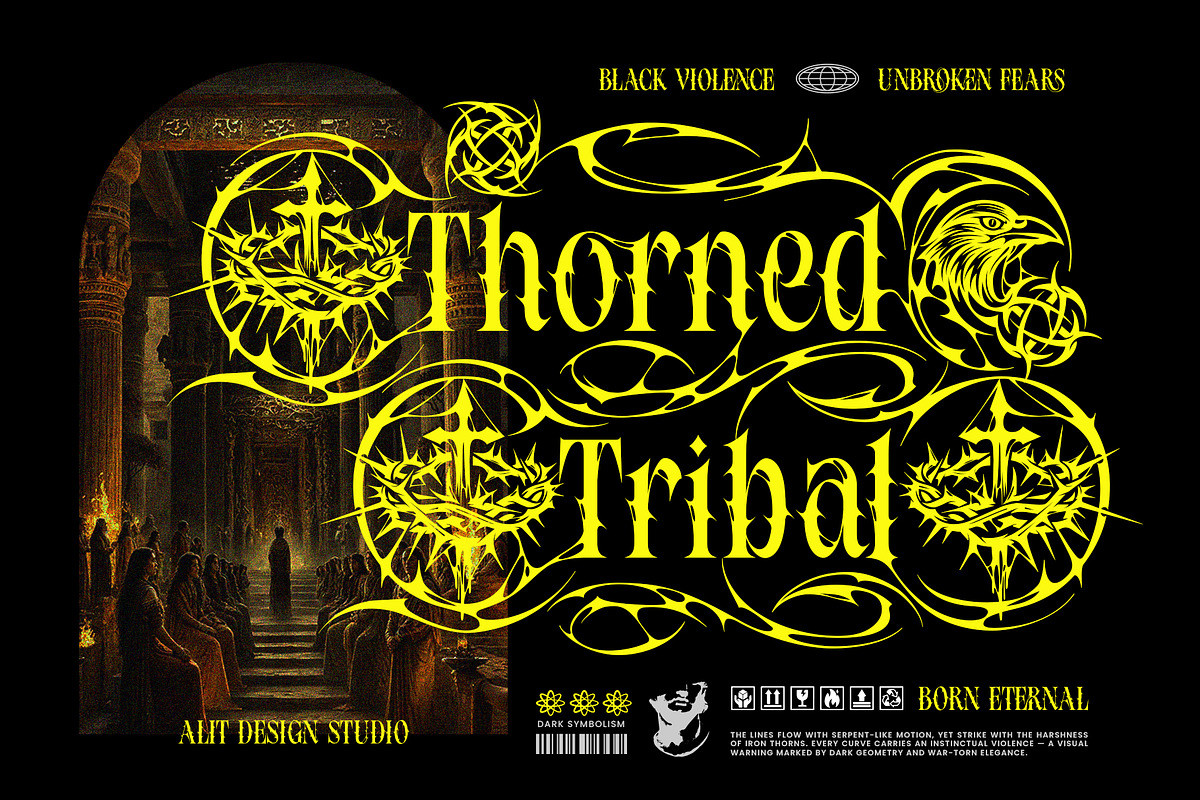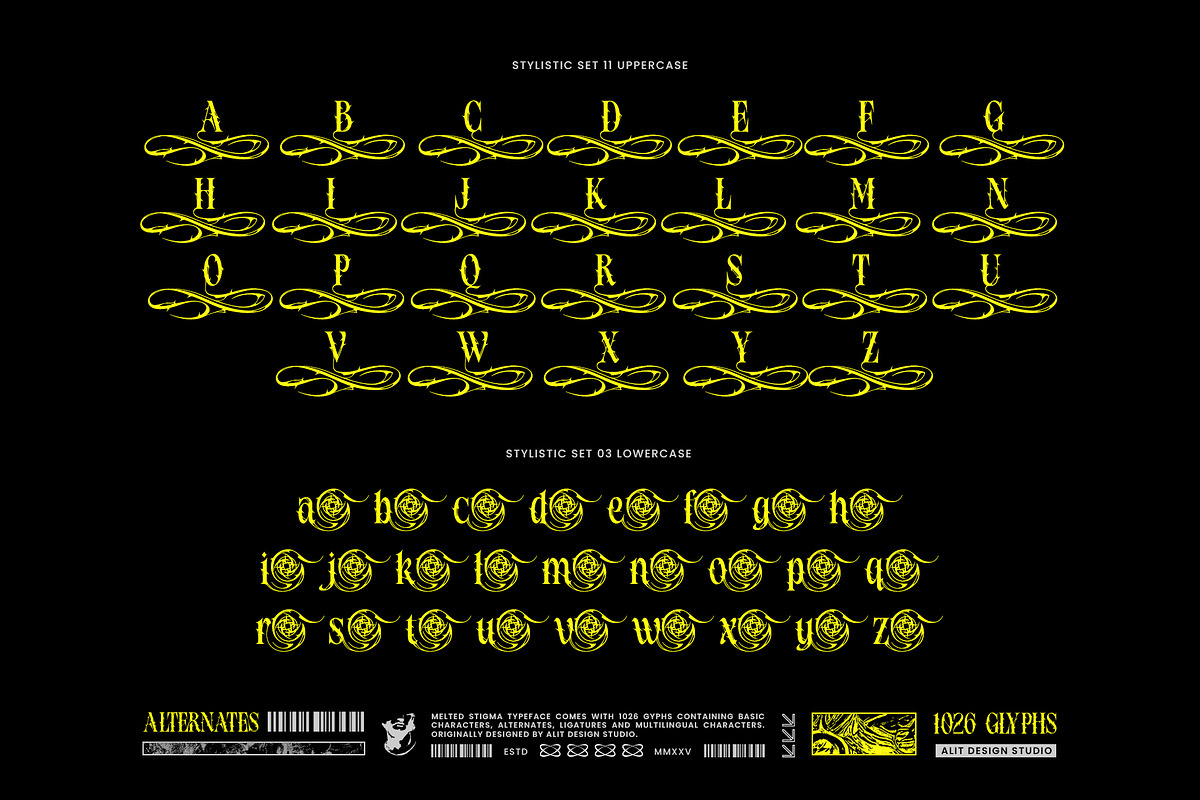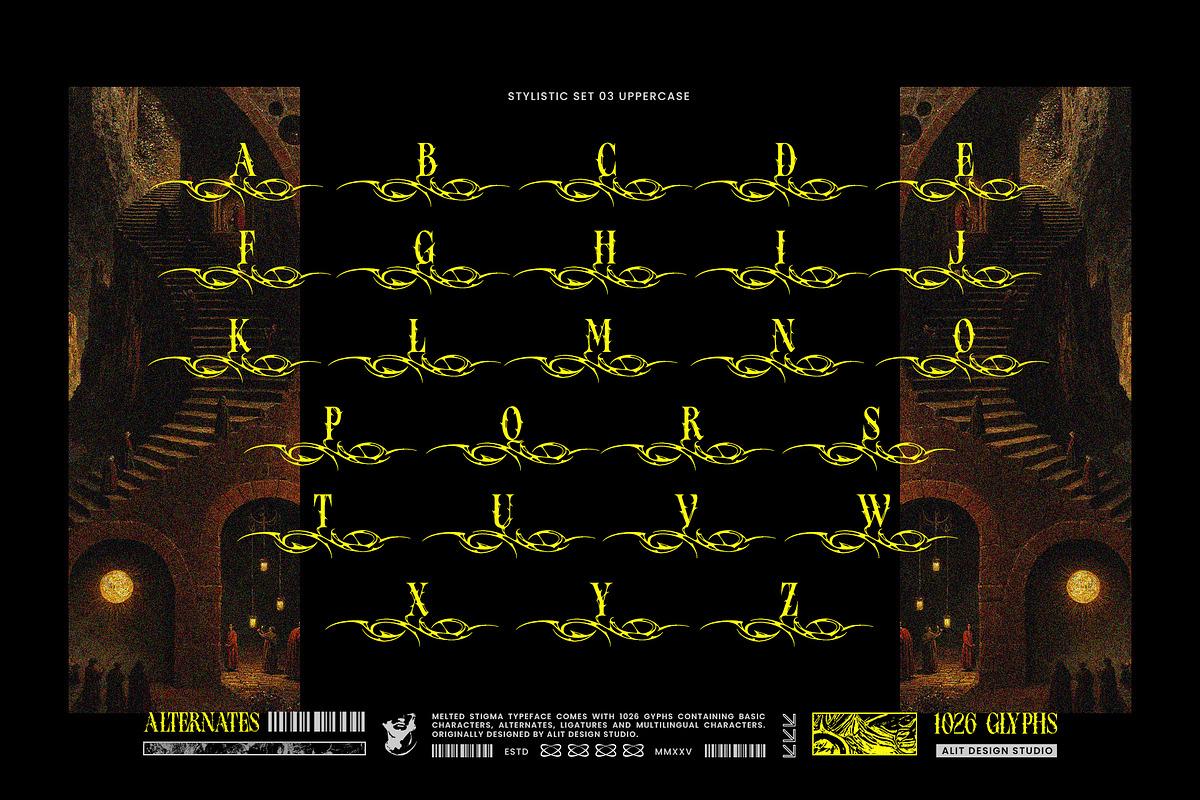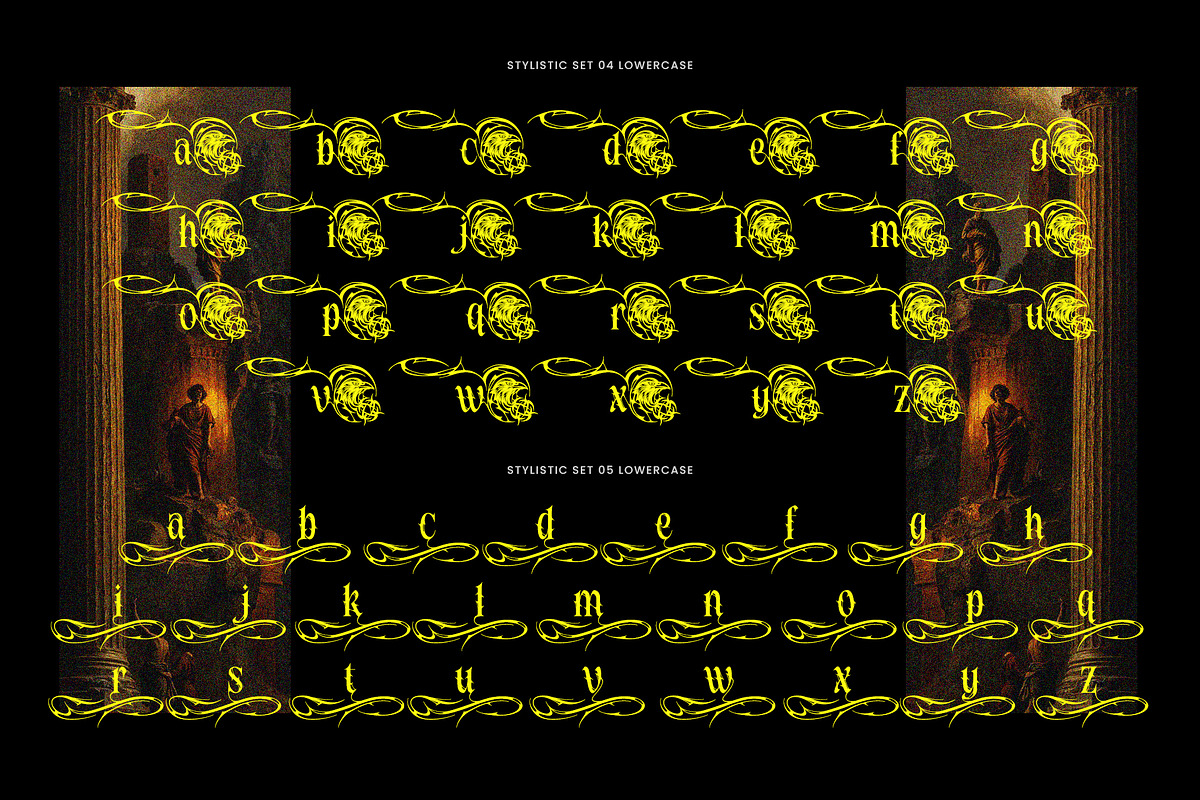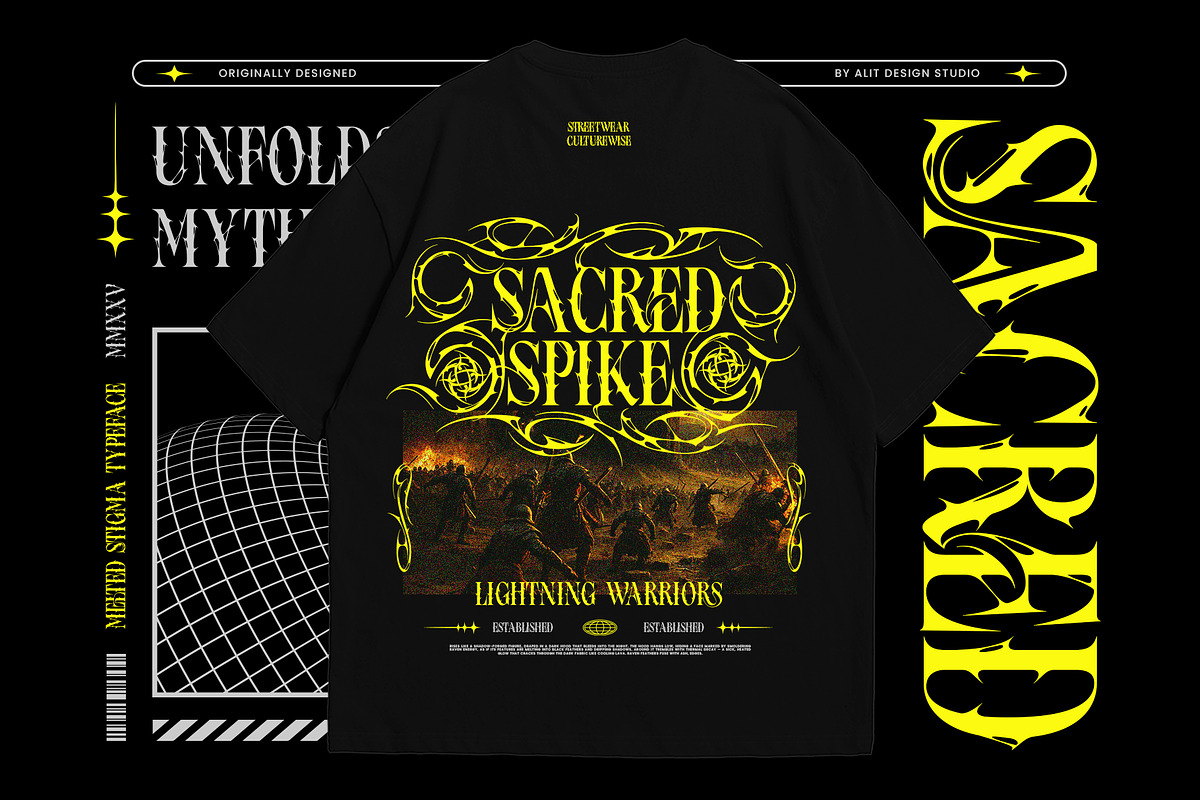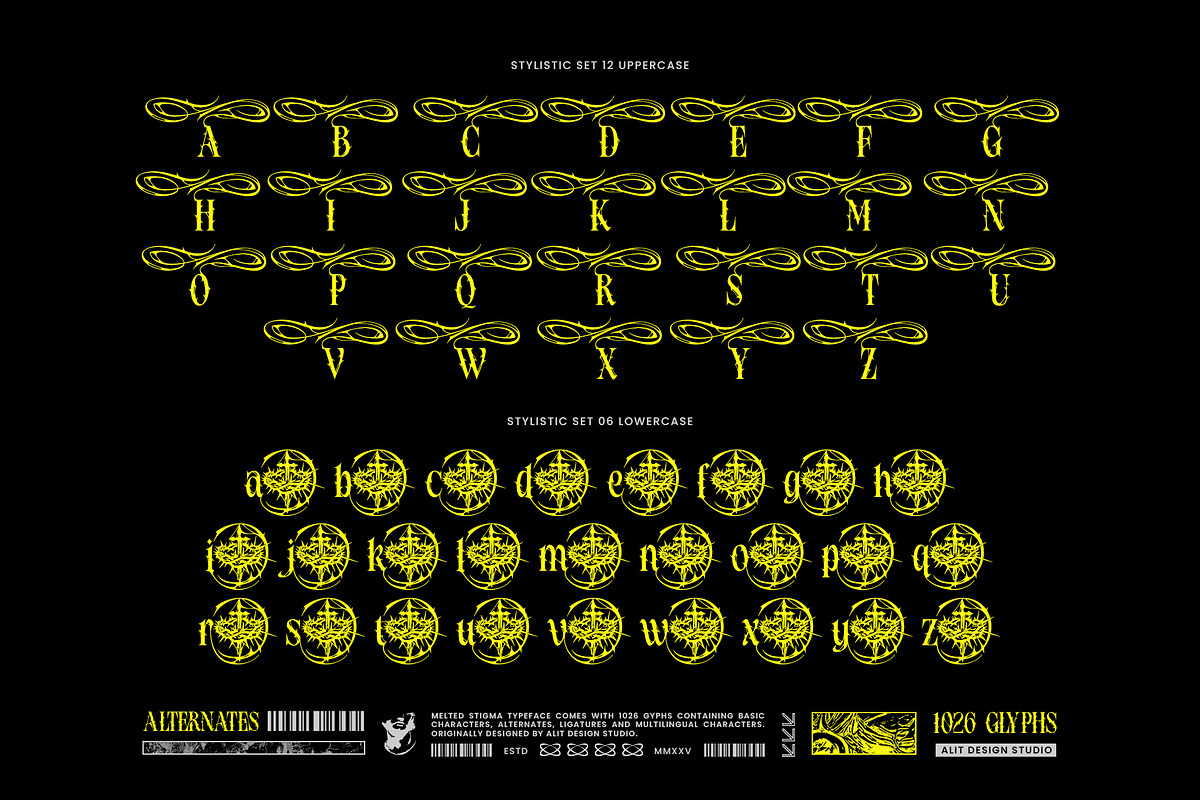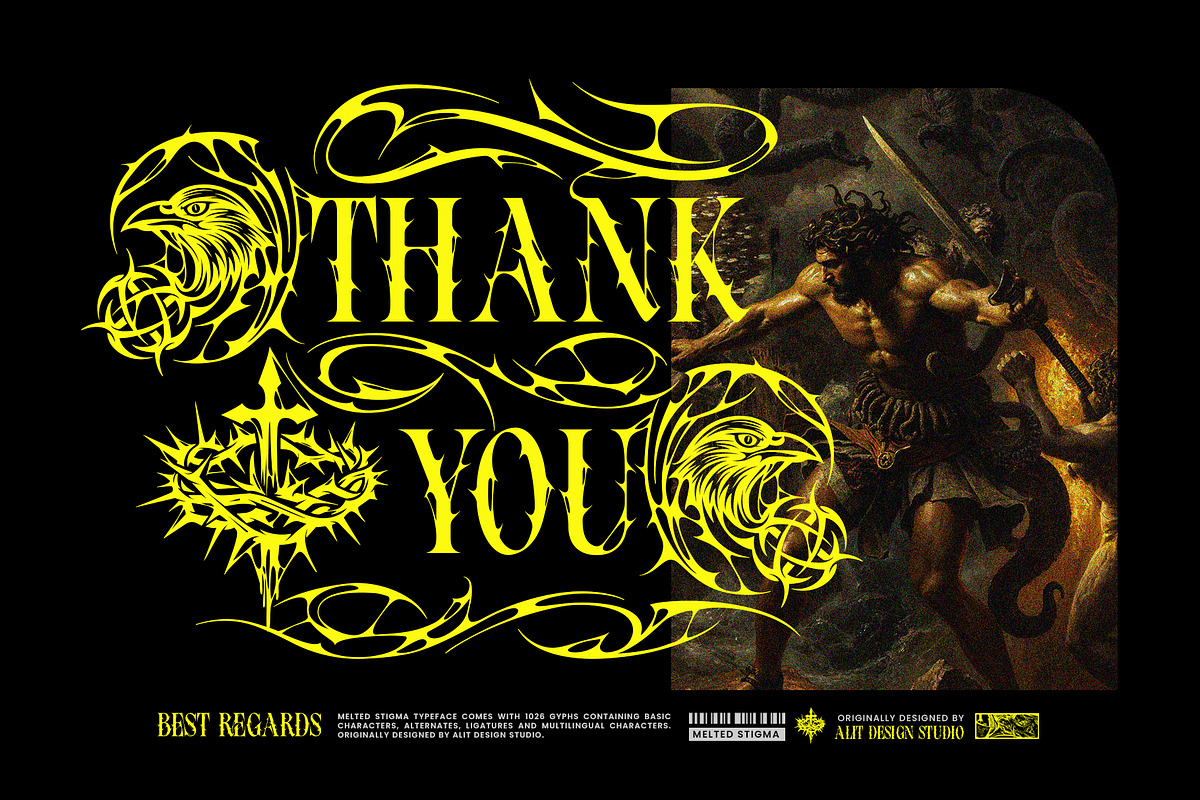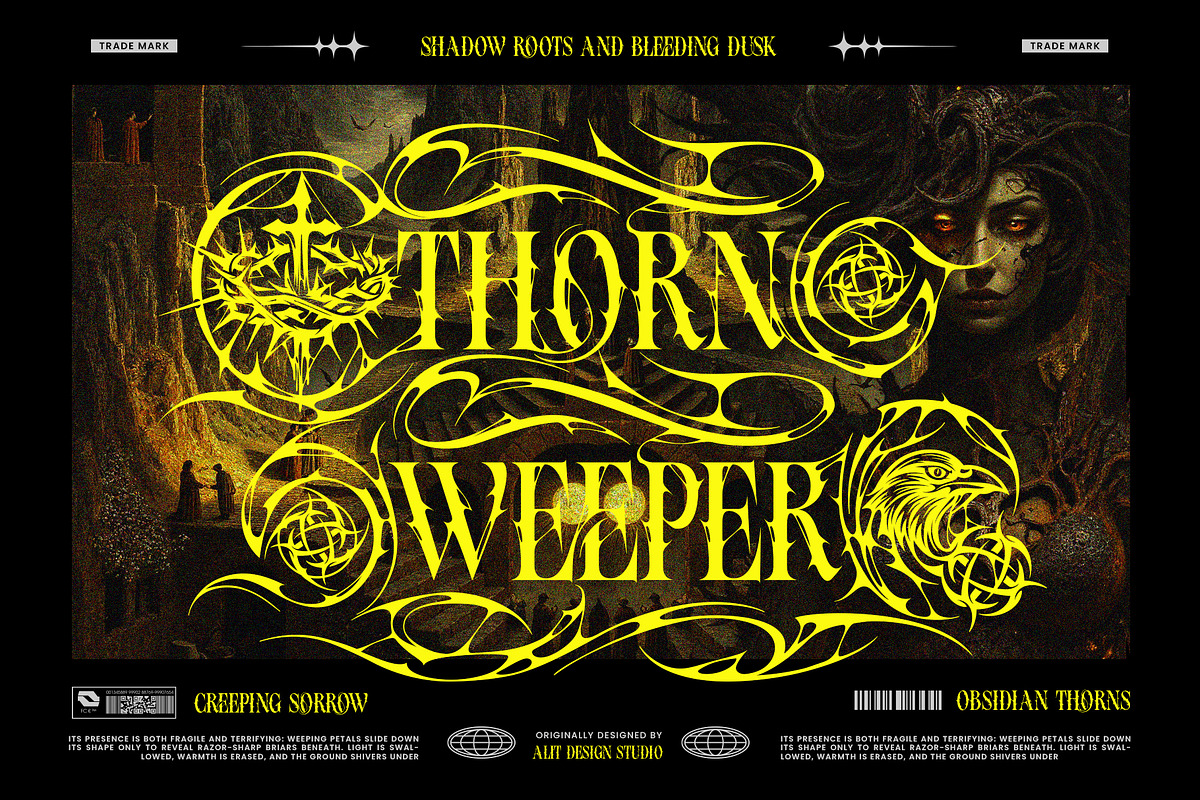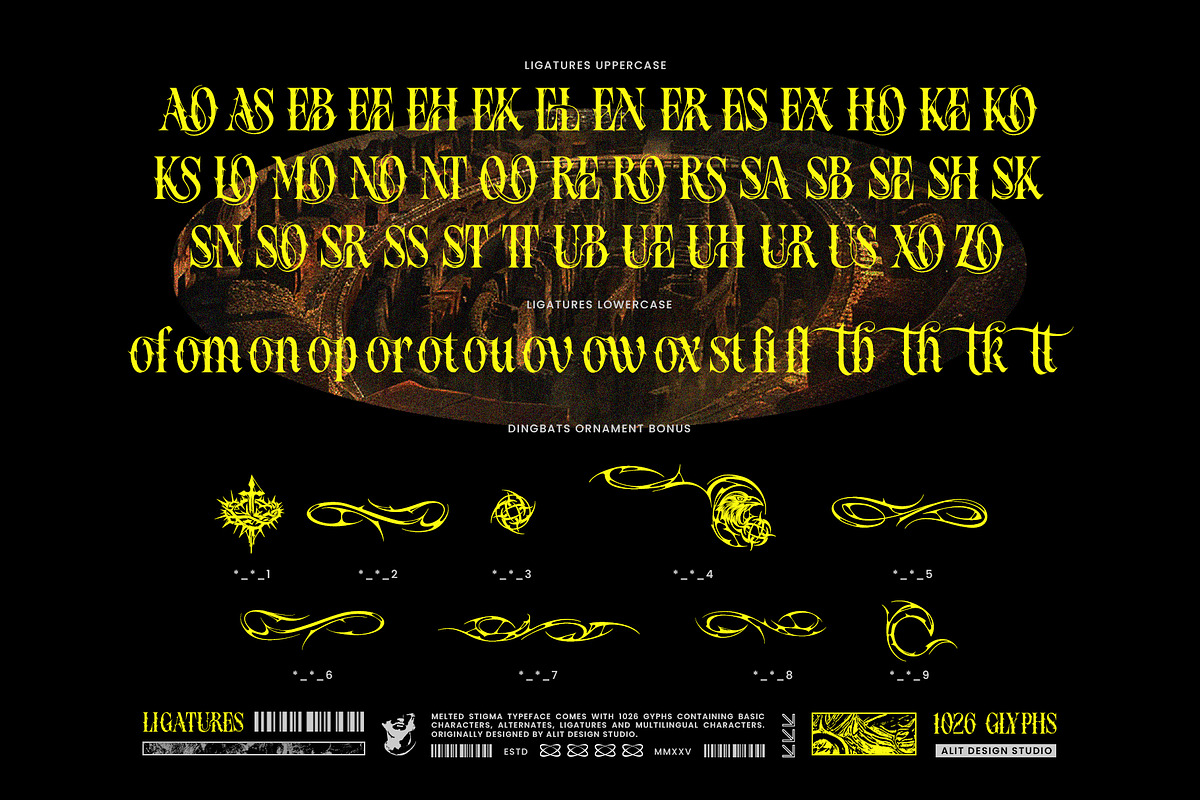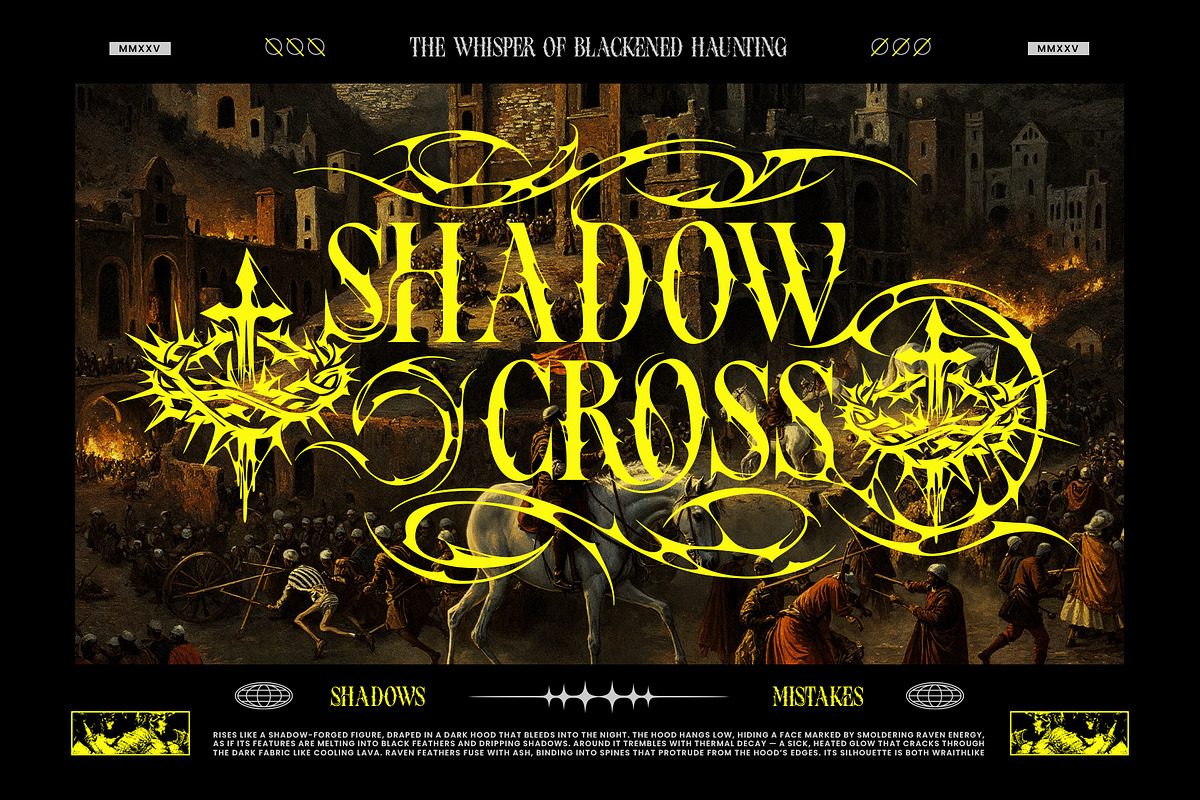
Melted Stigma Typeface
Melted Stigma: The Darkest Thorn Typeface
Forged from the imagery of cursed vines and midnight dark.
Introducing Melted Stigma, a typeface that exists where classic Blackletter meets chaotic fluidity. This is not merely a font; it is a visual manifestation of "smoldering raven energy." Melted Stigma merges the historic solemnity of gothic calligraphy with a modern, aggressive twist—letters that appear to be melting, bleeding, and twisting into razor-sharp thorns.
Every curve carries an instinctual violence, and every stroke is a balance between regal divinity and omen-laden power. Whether you are channeling the vibe of obscure occult graphics, extreme metal aesthetics, or futuristic tribalism, Melted Stigma delivers a visual impact that is impossible to ignore.
Why Melted Stigma?
- Hyper-Stylized Aesthetics: A unique hybrid of "liquid" typography and sharp, tribal thorn details. It looks like ink that is alive and moving.
- Massive Glyph Library: Includes a staggering 1026 glyphs. This gives you total control to customize your text with endless variations.
- Extreme Versatility: Features multiple Stylistic Sets (SS01, SS02, SS03) that transform standard characters into elaborate, vine-wrapped masterpieces.
- Legible yet Cryptic: maintains the readability of bold display fonts while keeping the mysterious allure of underground art.
- Heavy Metal & Rock Band Logos: Create logos that look like they belong on a stadium stage or a dungeon wall.
- Streetwear & Apparel: Ideal for edgy t-shirt designs, hoodies, and urban fashion brands looking for a "Y2K dark" or "Cyber-Gothic" look.
- Album Cover Art: Capture the mood of sorrow, power, and darkness.
- Tattoo Design & Merchandise: Distinctive shapes that work beautifully for ink and print.
- Game & Movie Titles: Perfect for horror, fantasy, and dark rpg genres.
- Standard Glyphs + Ligatures
- Extensive Stylistic Alternates & Swashes
Embrace the darkness. Let your designs bleed with the "creeping sorrow" and "obsidian thorns" of Melted Stigma.